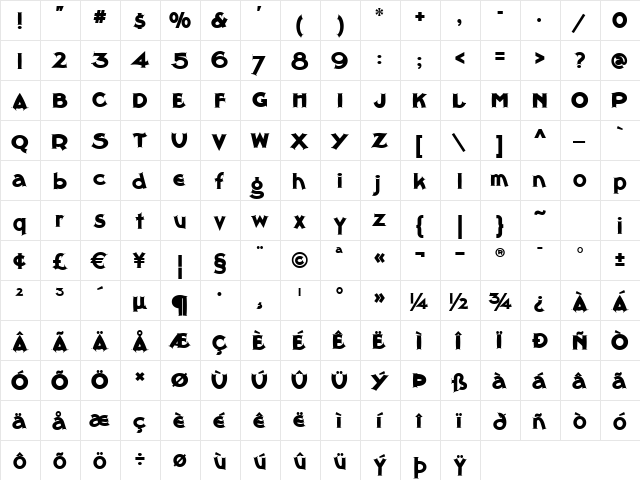
Thimble Theatre Nf Regular Font Preview
Thimble Theatre Nf Regular
Thimble Theatre Nf Regular Font Details
| Foundry | Nick Curtis |
Design Context for Thimble Theatre Nf Typeface
Thimble Theatre Nf is a composed and adaptable typeface that performs quietly and consistently across a wide range of design contexts.